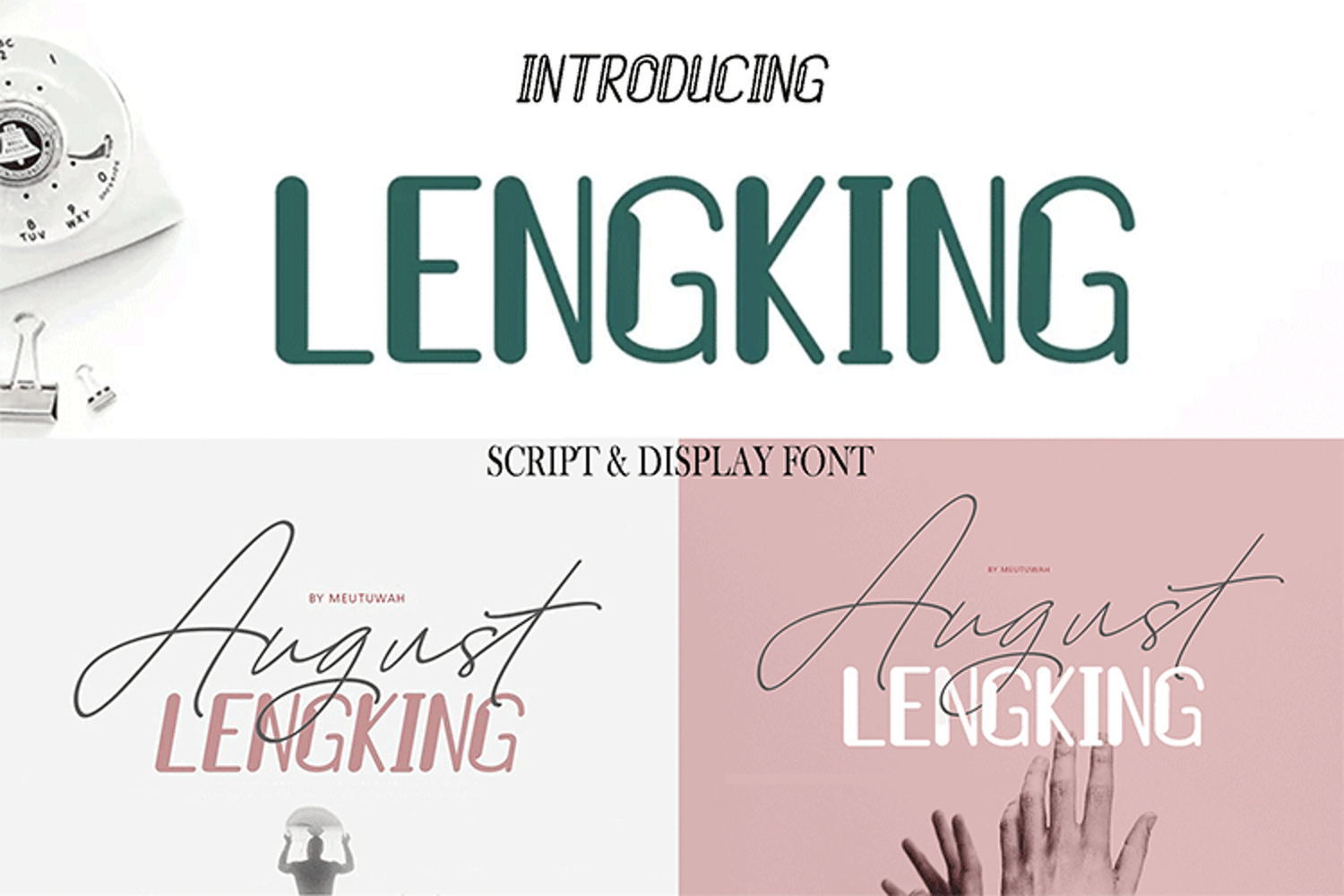
August & LENGKING Script & Display 6 Font
August Script
August Script Bold
LENGKING
LENGKING SLANT
LENGKING DIS
LENGKING DIS SLANT
Hello Font Lovers. August & LENGKING Script & Display, is another lovely modern script, signature and display font, which is combining the style of classic calligraphy with an modern style. combines from copperplate to contemporary typeface with a dancing baseline, modern and elegant touch. including alternates, and ligatures.